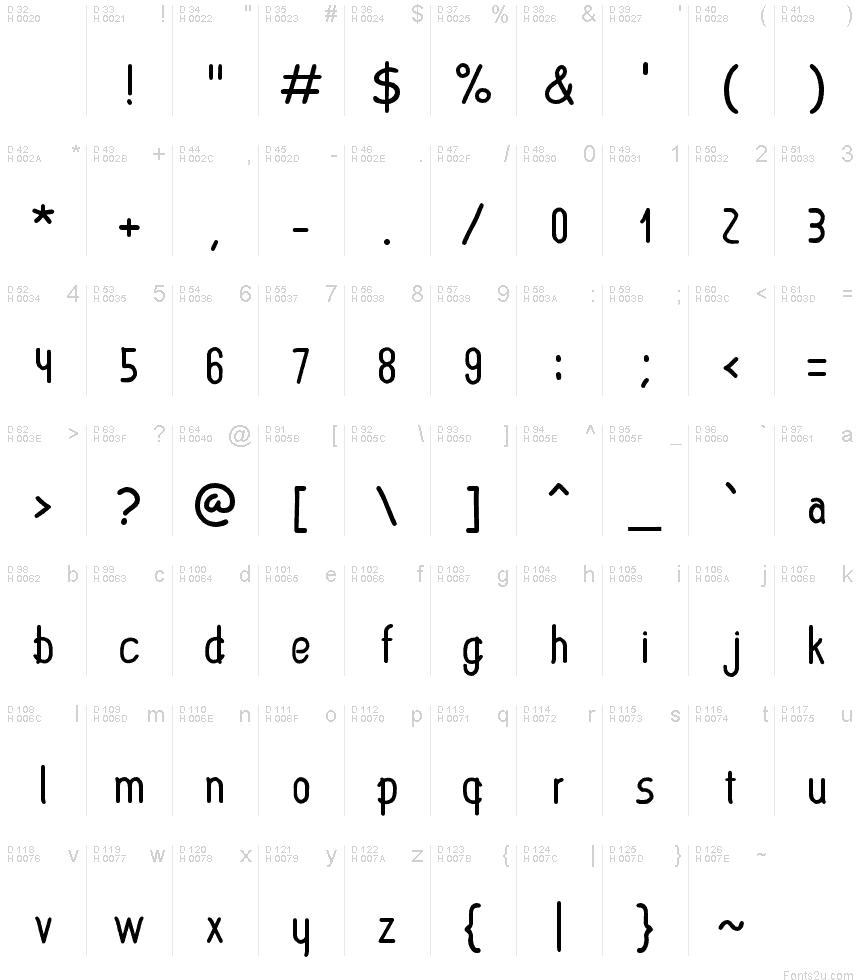
It consists of 8 styles: Web is modular™ free to download? Web modular is a six layer stacking display typeface.
In 1931 This Font Was Commissioned By The British Newspaper “The Times”.
Web is modular™ free to download? Six different layers build the type. Web modular is a six layer stacking display typeface.